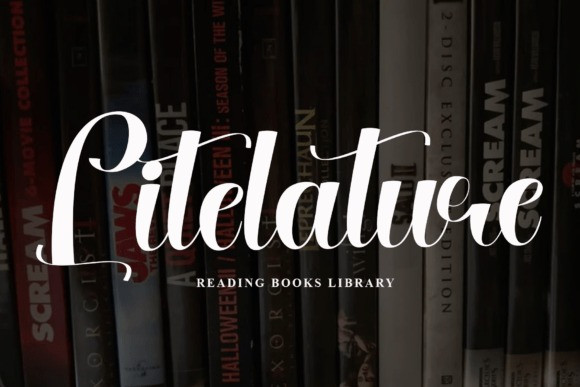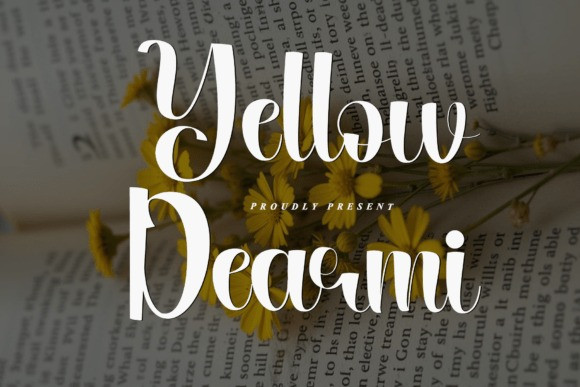
Yellow Dearmi Script Font
Yellow Dearmi Script Font is a graceful and modern handwritten script font that combines professionalism with a touch of romance. Its flowing lines, heart-shaped swashes, and smooth curves make it ideal for everything from business branding to wedding invitations. Whether you’re designing logos, social posts, or stationery, Coffee Guide adds an elegant personal touch with charm and warmth.